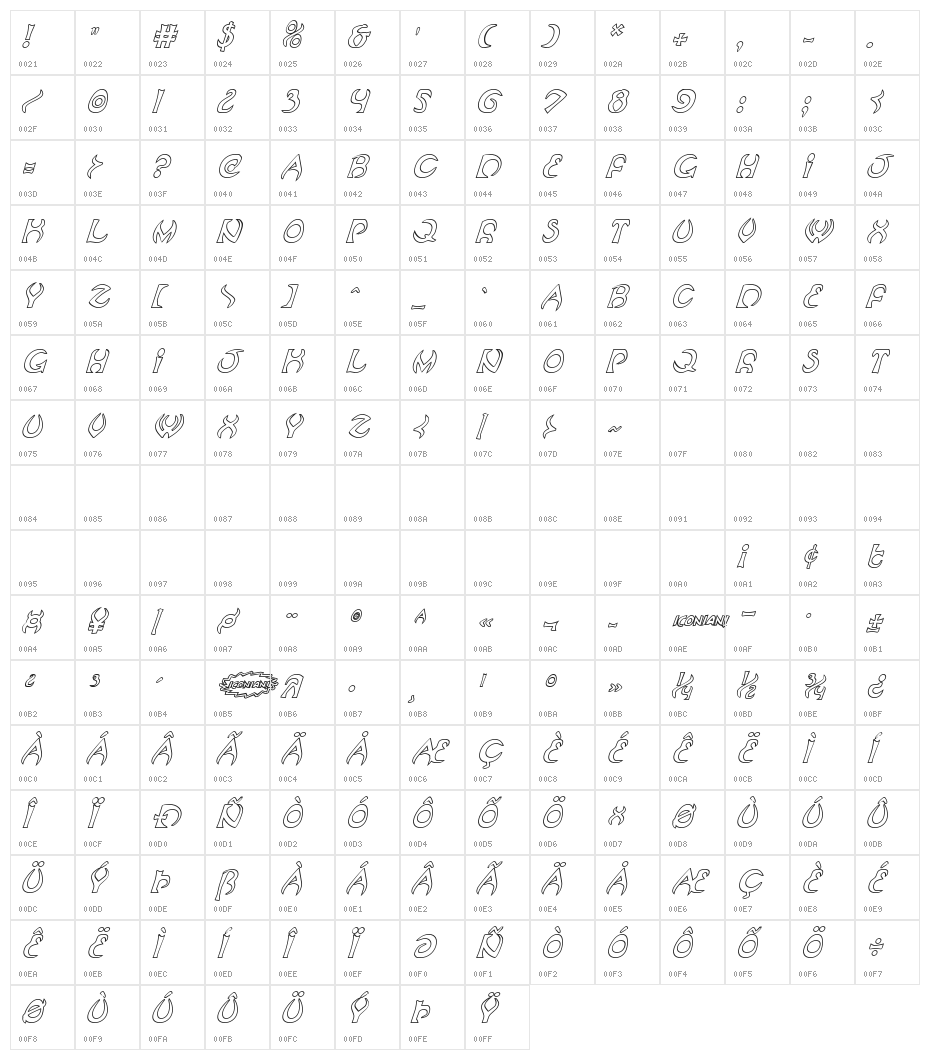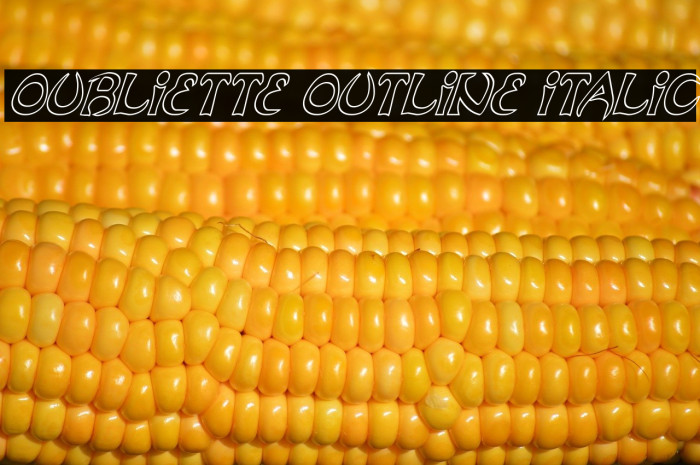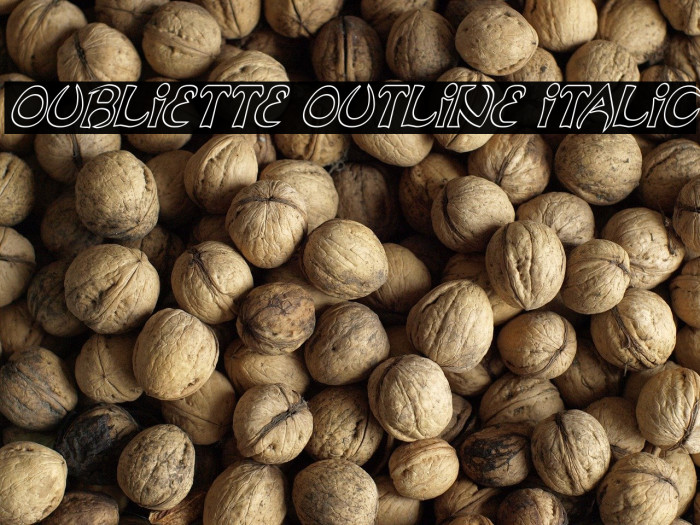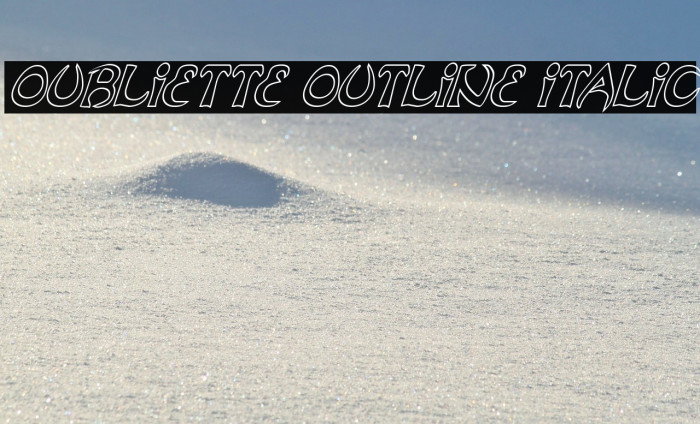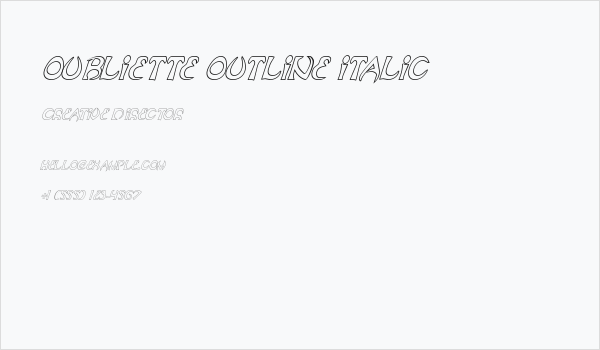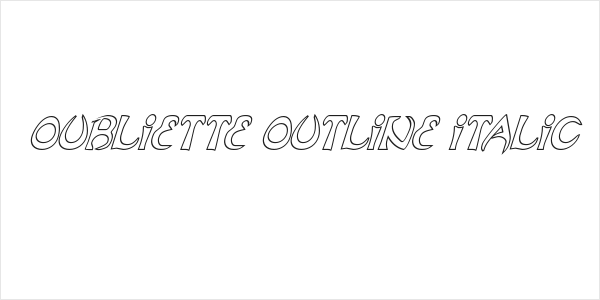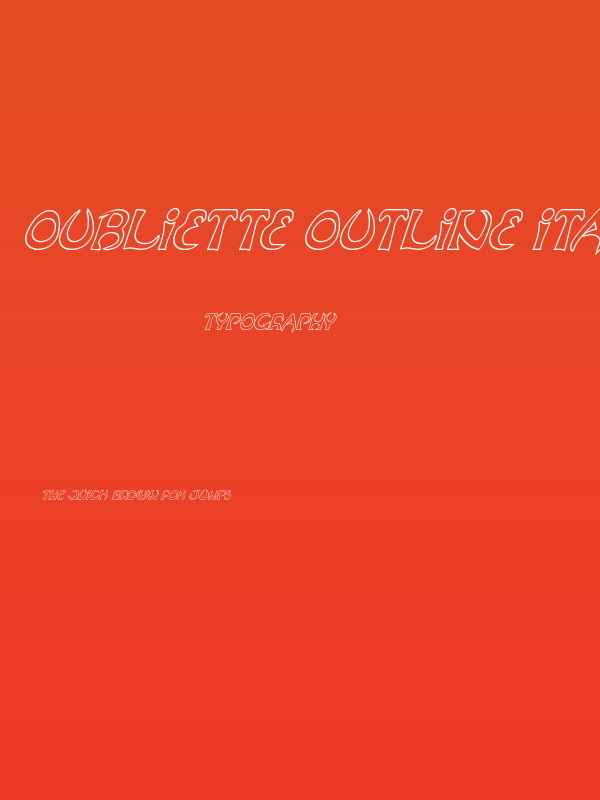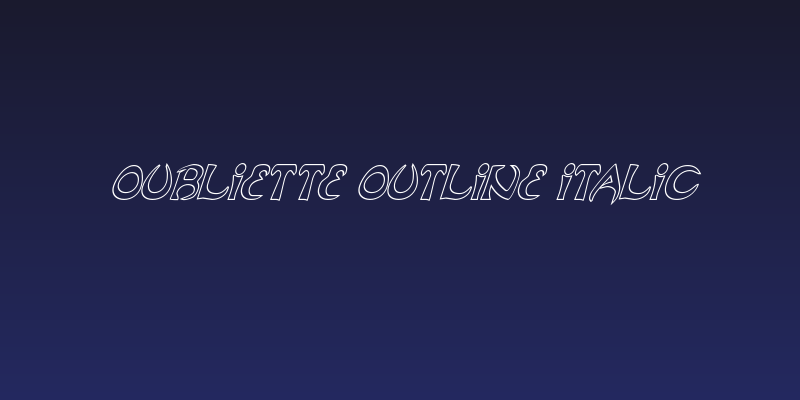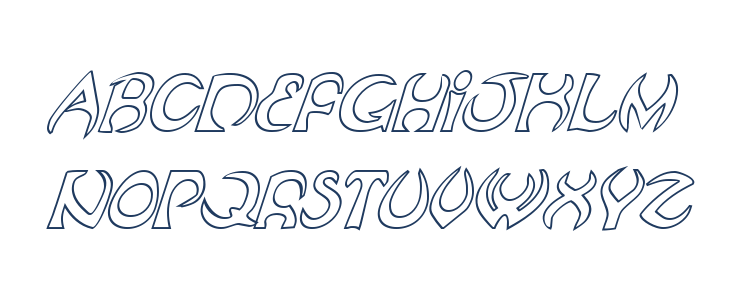
Oubliette Outline Italic Font
Oubliette Outline Italic Description
This font features an outline style with a distinct italic slant, giving it a dynamic and energetic appearance. The characters are bold and expressive, with a playful yet sophisticated design. The uppercase and lowercase letters maintain a consistent style, with smooth curves and sharp angles that create a sense of movement. The numbers and special characters are crafted with the same attention to detail, ensuring a cohesive look across all elements. This font's unique outline and italic characteristics make it stand out, offering a modern twist on traditional typography.